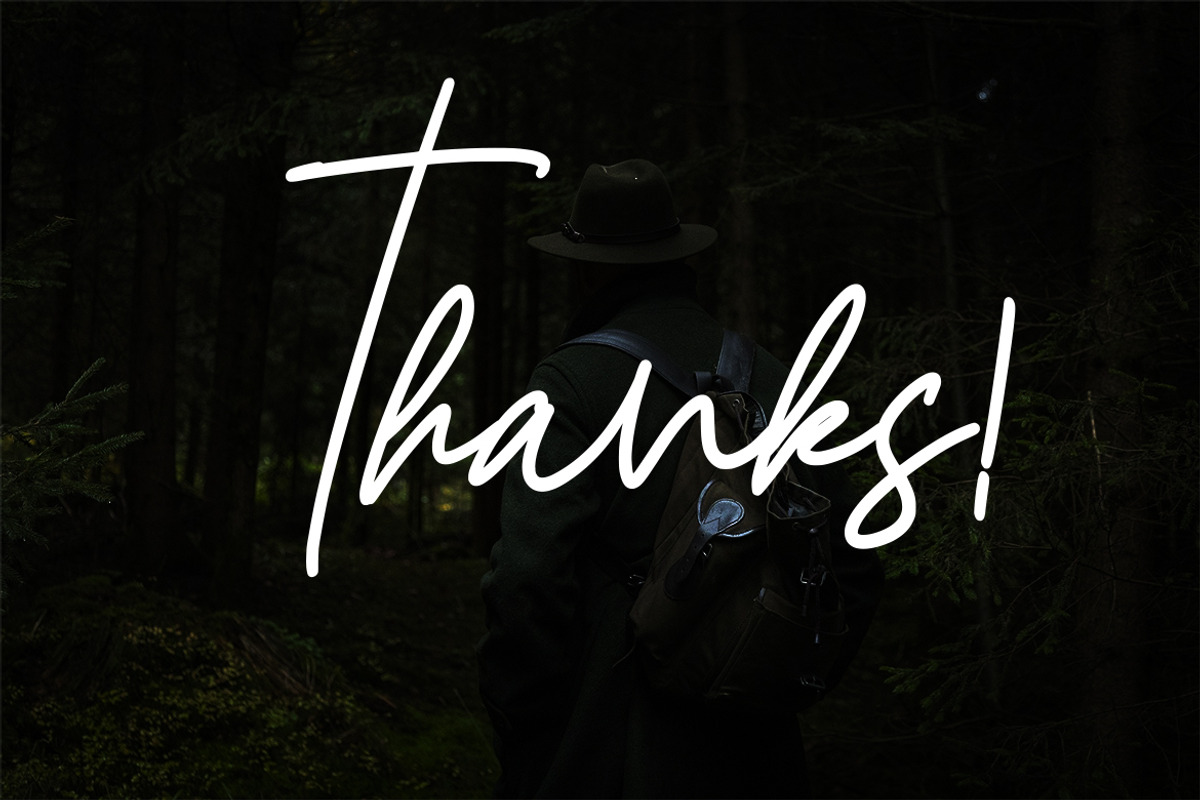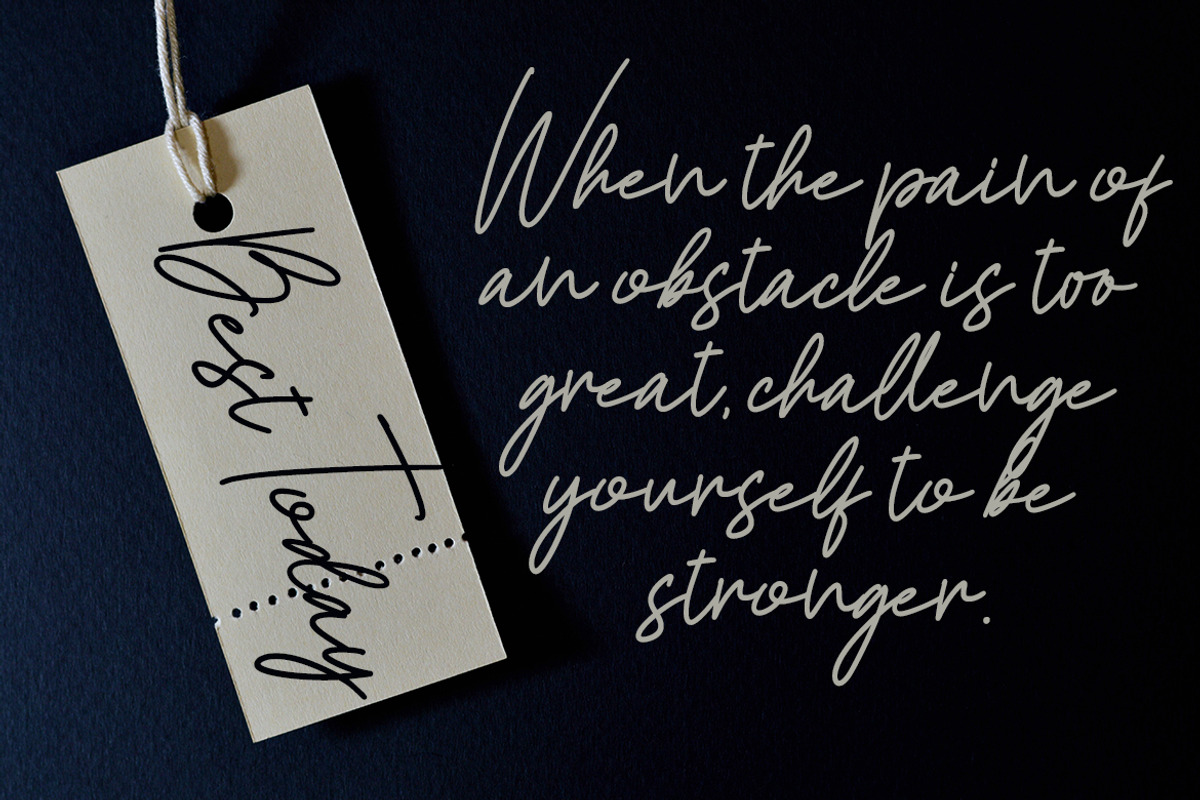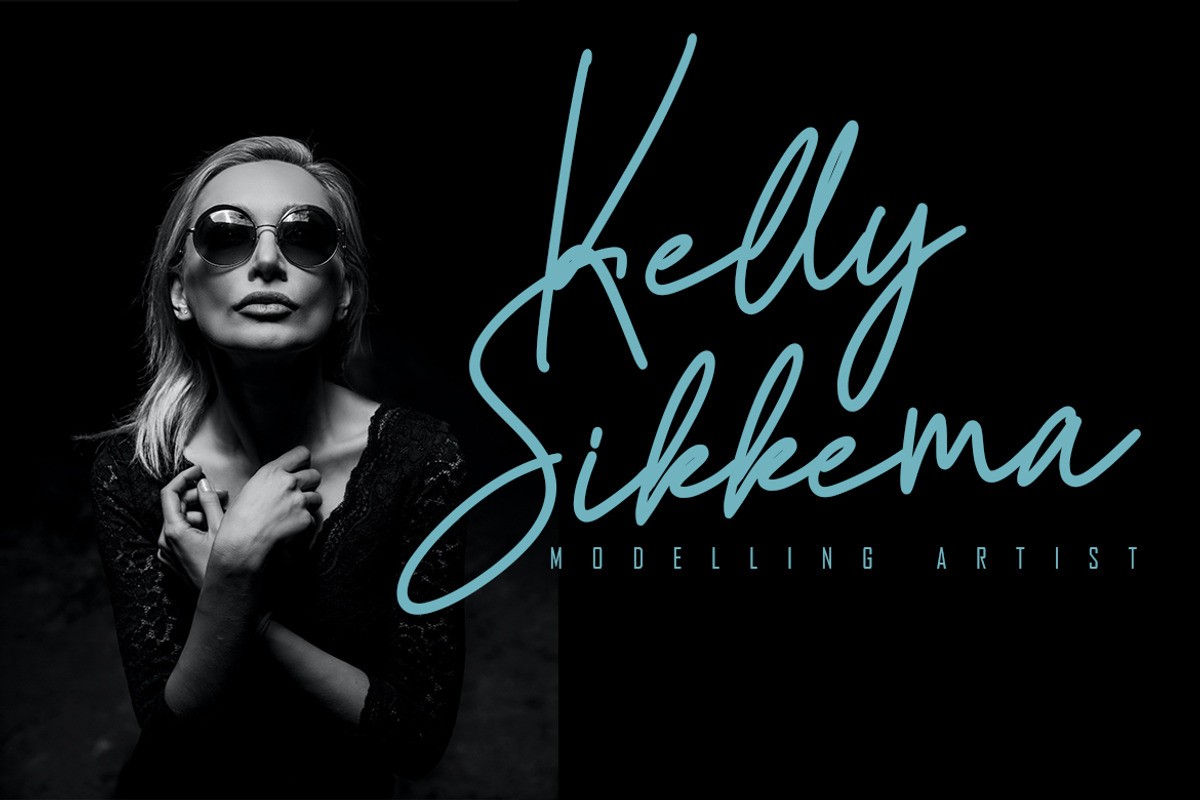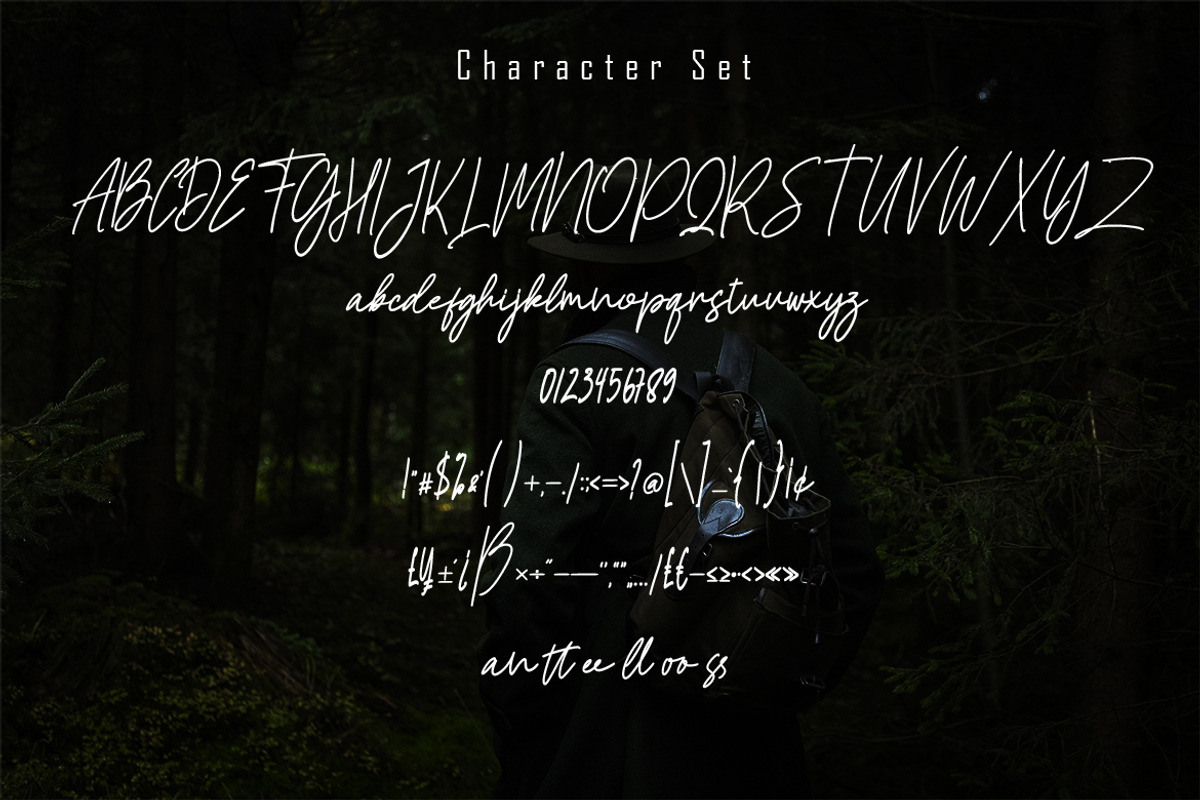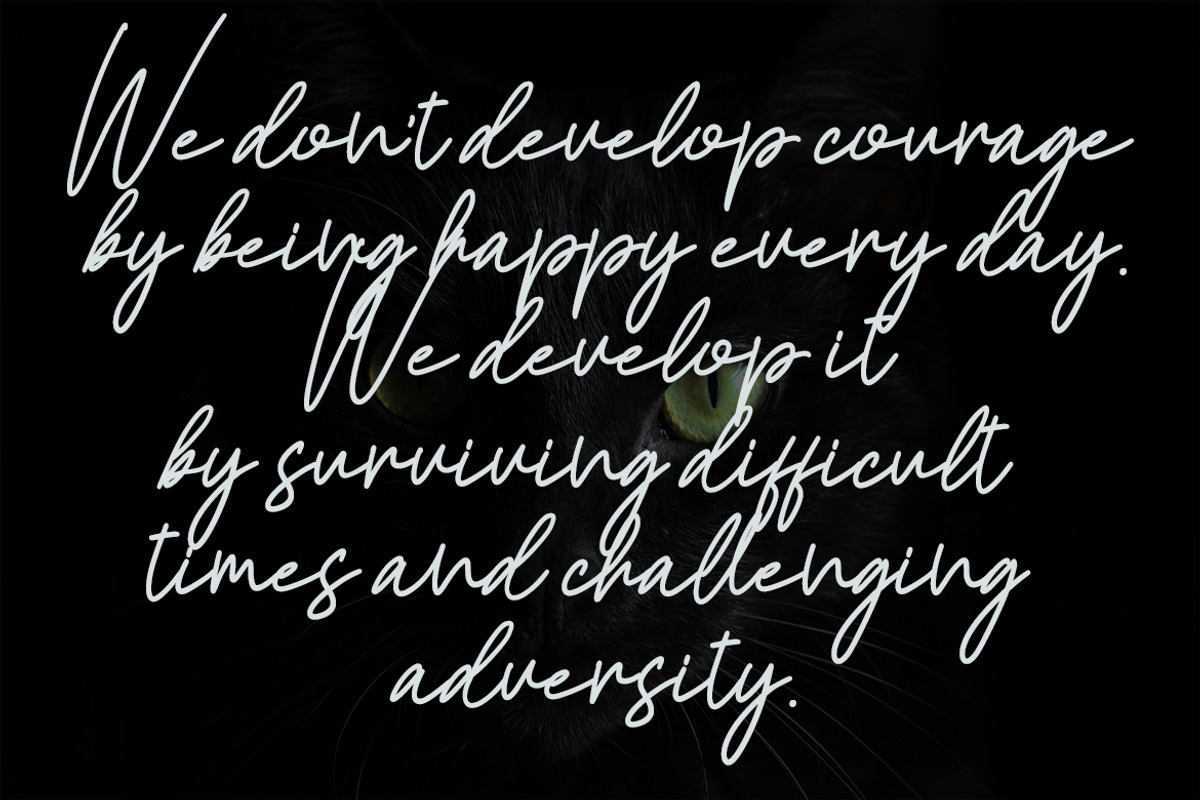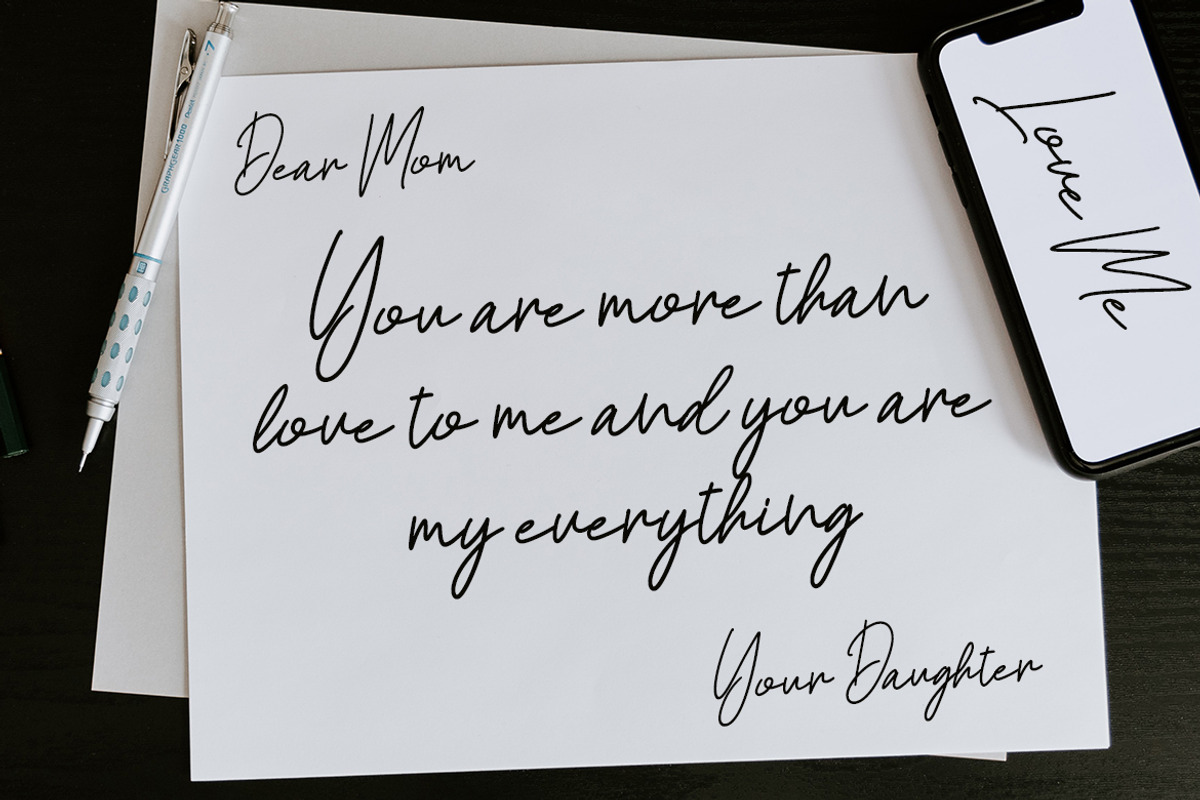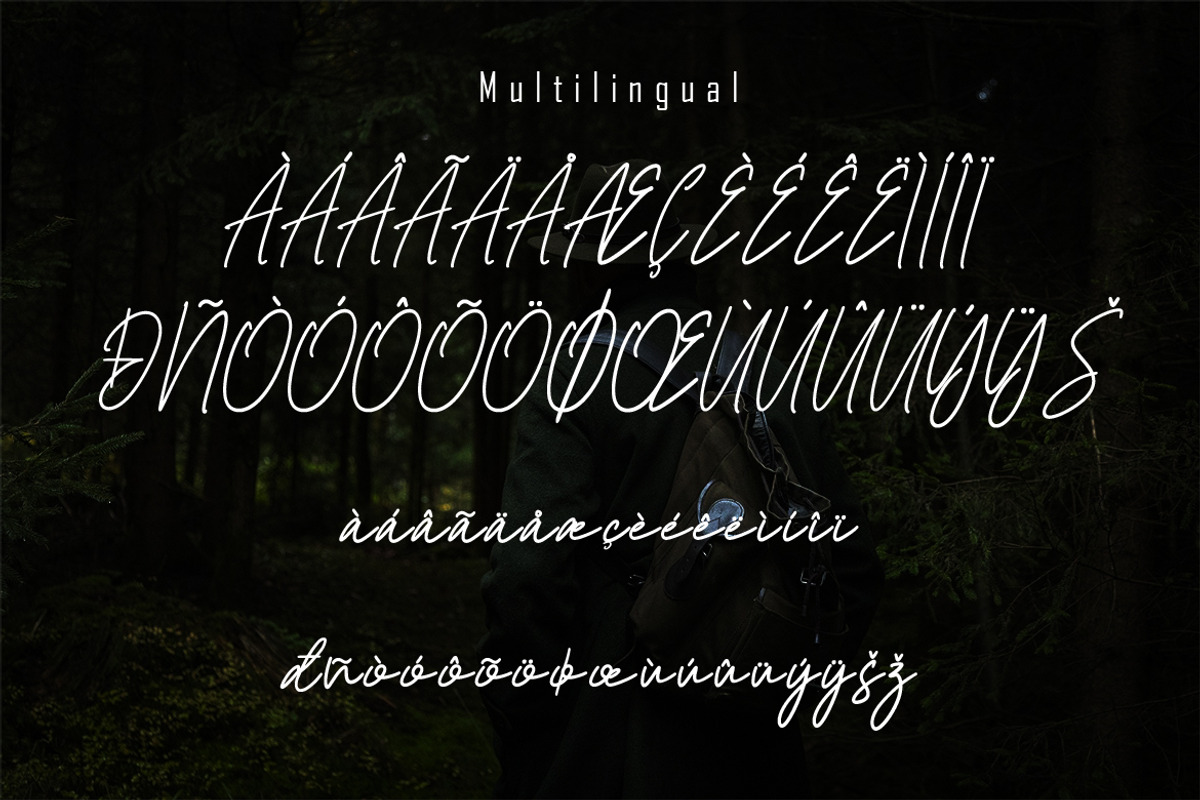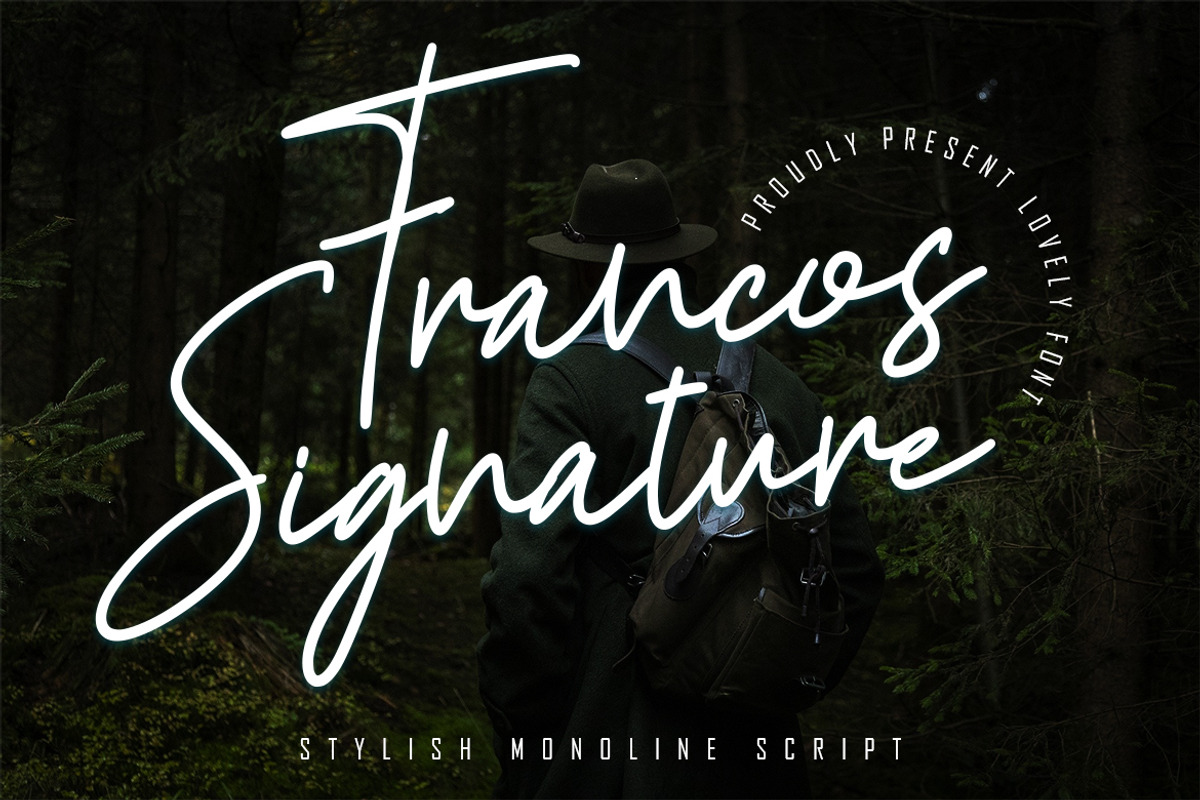
Francos Signature - Stylish Monoline
Francos Signature is a flowing handwritten font, described by an elegant touch, perfect for your favorite projects. Fall in love with its incredibly distinct and timeless style and use it to create spectacular designs!
- Basic Latin Language Support (AÀÁÂÃÄÅCÇDÐEÈÉÊËIÌÍÎÏÑOØÒÓÔÕÖUÙÜÚÛWYÝŸÆß )